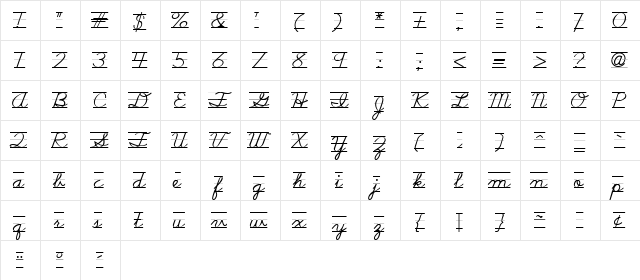
NealCurieRuledSH Regular
Design Context for NealCurieRuledSH Typeface
NealCurieRuledSH offers clean, dependable letterforms without strong stylistic allegiance, making it a practical choice for designers who need flexibility.